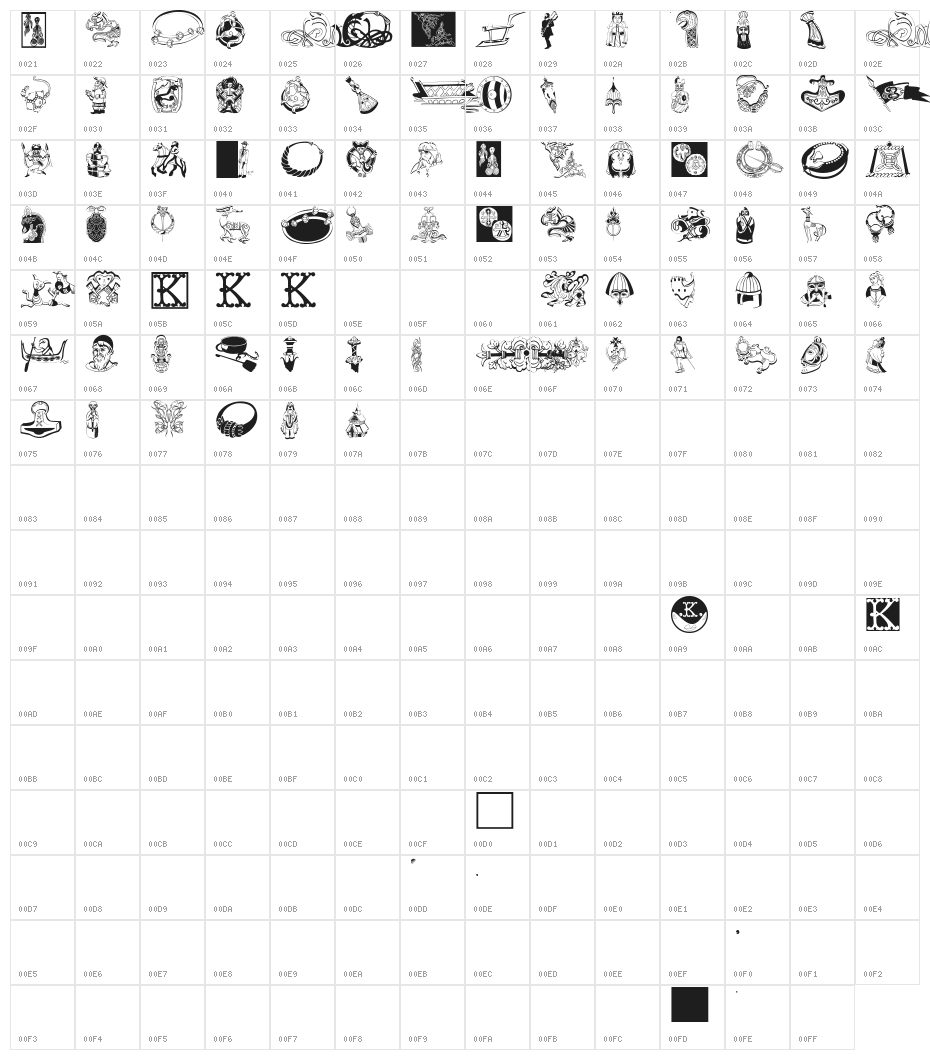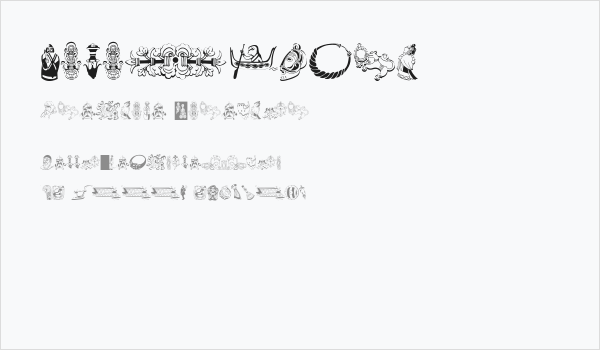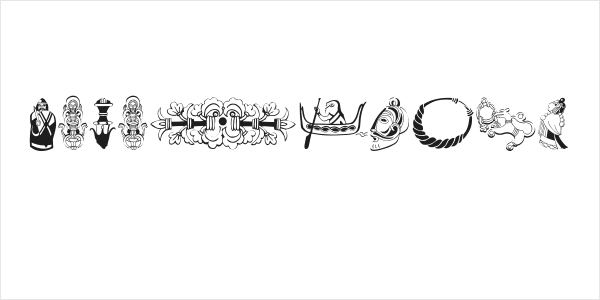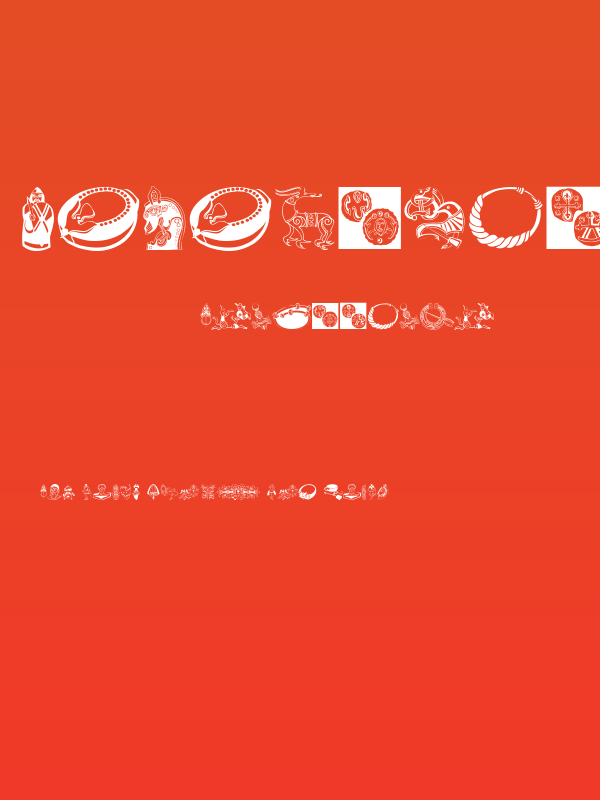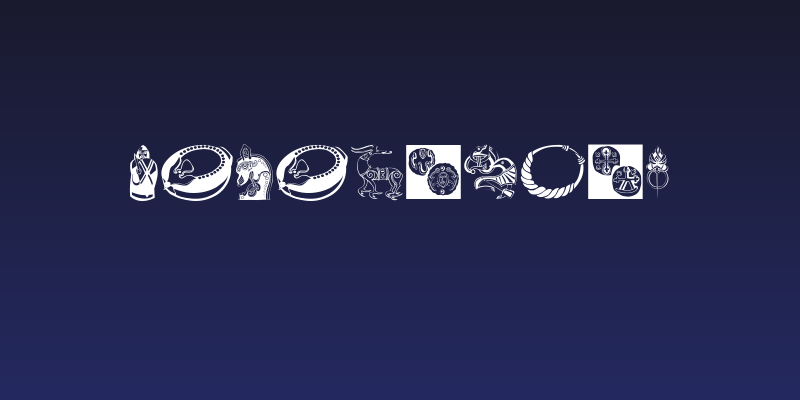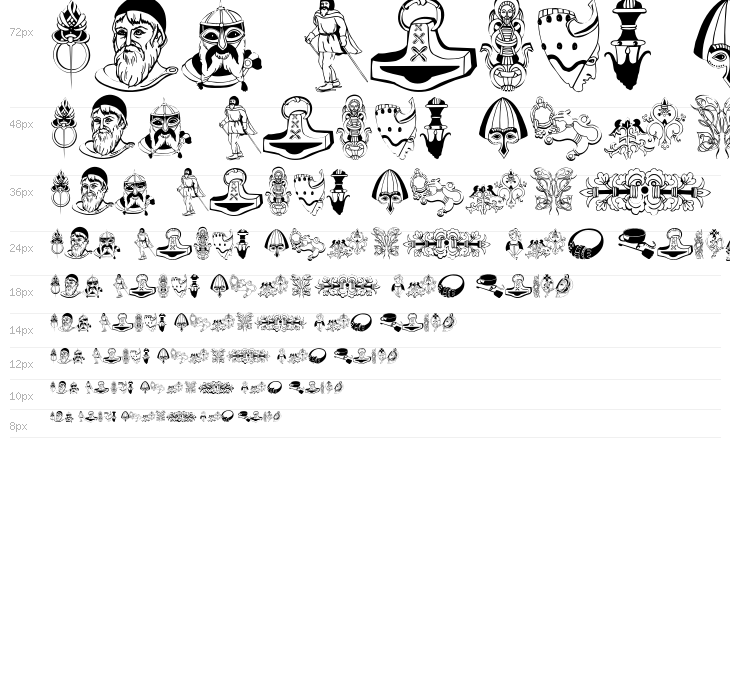
VikingsArt Font
VikingsArt Description
A highly decorative and illustrative font composed of intricate Viking and Norse-themed artwork, including helmets, ships, shields, mythical creatures, and ornamental motifs. Each character is represented by a unique pictorial glyph rather than standard letterforms.
| Overall Style | Decorative, Thematic, Illustrative |
| Use Case | Logos, Headlines, Posters, Themed graphics |
| Proposed Projects | Historical posters, themed event invitations, educational materials, fantasy book covers, game titles, decorative branding. |